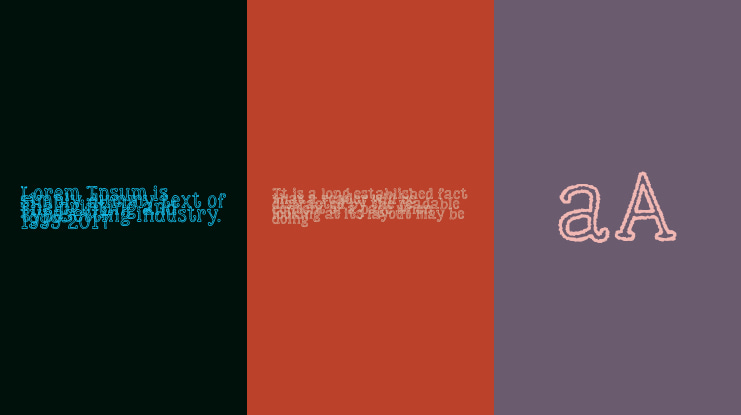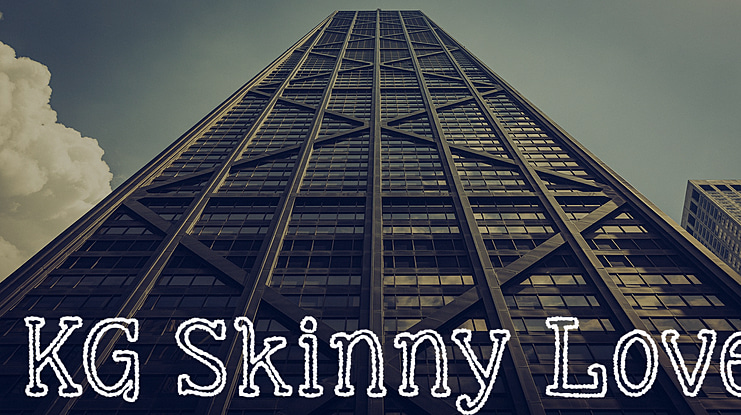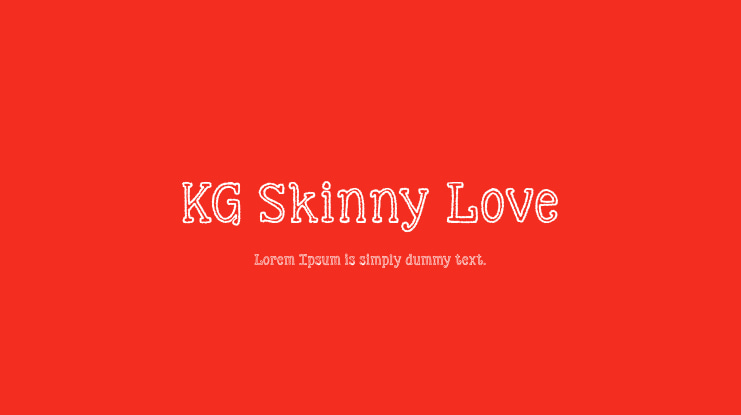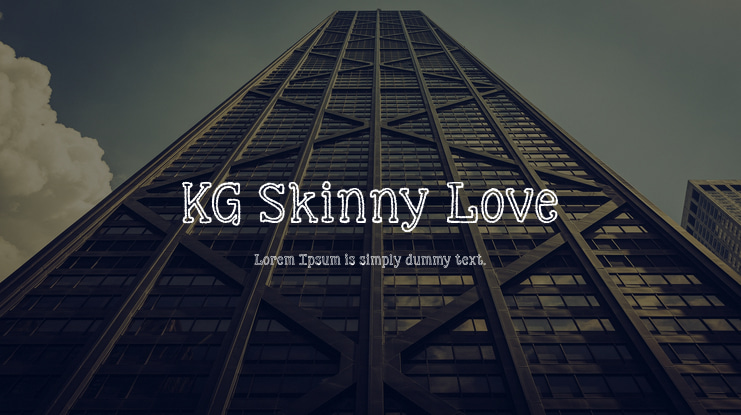
KG Skinny Love Font
Kimberly Geswein
This font was inspired by the Bon Iver song (covered by Birdy, covered by Ed Sheeran, covered by so many other greats). I just wanted to clarify in case anyone thinks I'm saying you need to be skinny. Beautiful women come in all shapes and sizes. Just wanted to make sure that was 100% clear. And if you're not familiar with the song, sit and listen. My faves are the Birdy and Ed Sheeran versions. Don't forget to come back and download the font. :) I know it is easy to get lost in the moment listening to Ed singing and lose track of the world.